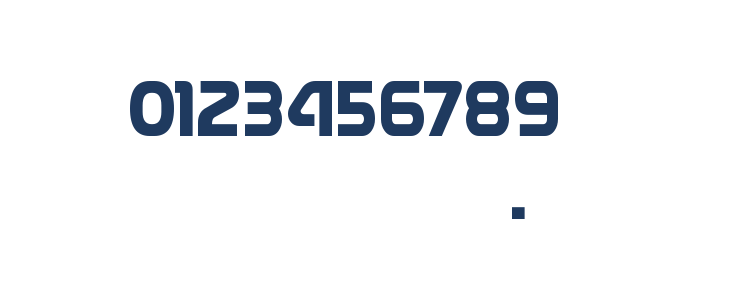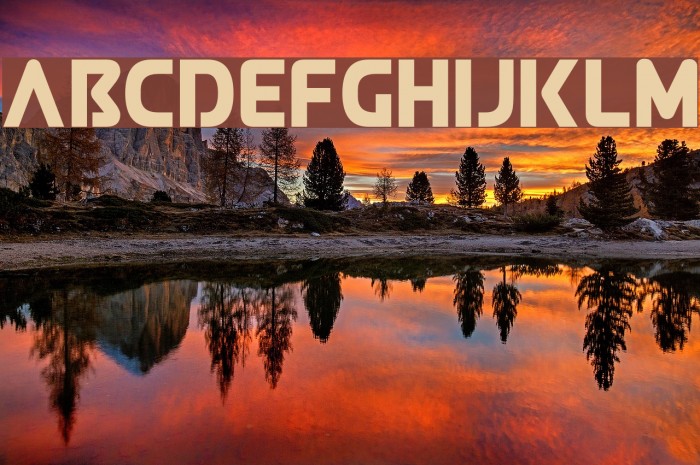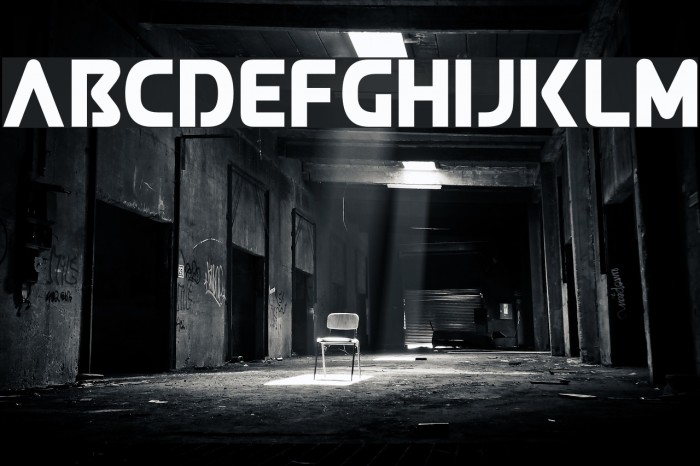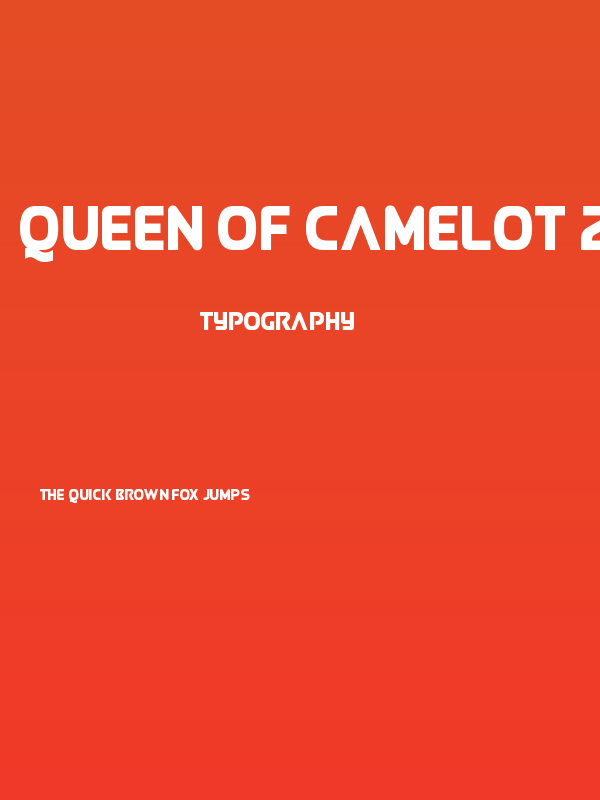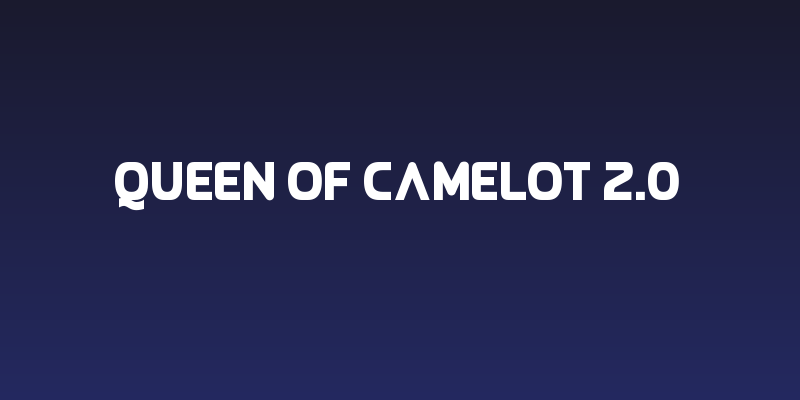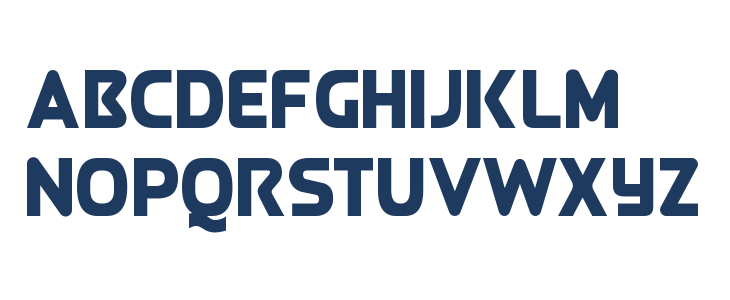
Queen of Camelot 2.0 Font
Queen of Camelot 2.0 Description
This font features a bold and modern design with a geometric structure. The characters are well-defined with a strong presence, making it suitable for attention-grabbing headlines. The uppercase letters exhibit a uniform height and width, contributing to a cohesive and balanced appearance. The numerals are equally bold, maintaining the font's overall aesthetic. The design is clean and straightforward, with minimal embellishments, emphasizing clarity and readability.
| Proposed Projects | Ideal for branding, advertising, posters, and digital media where a strong visual impact is needed. |